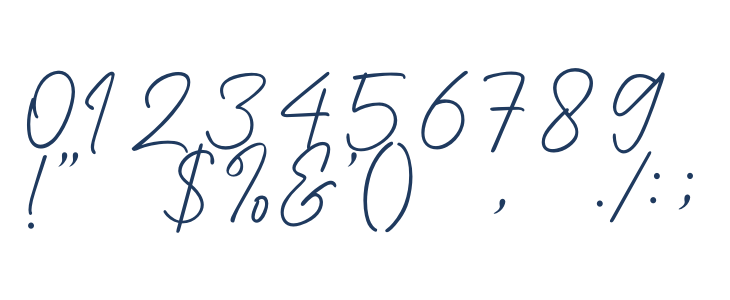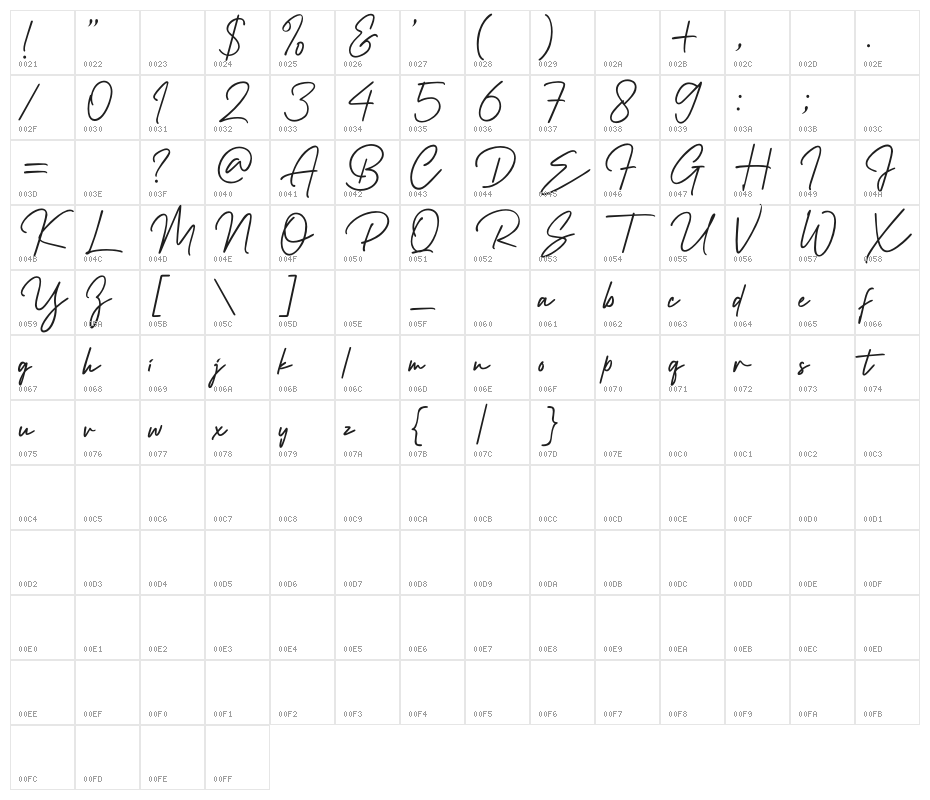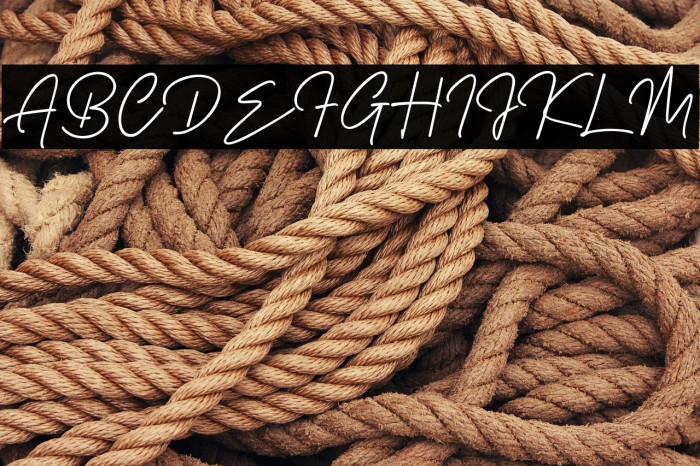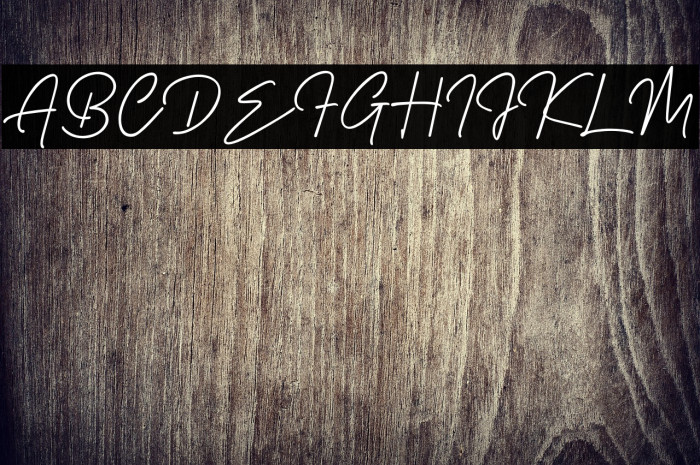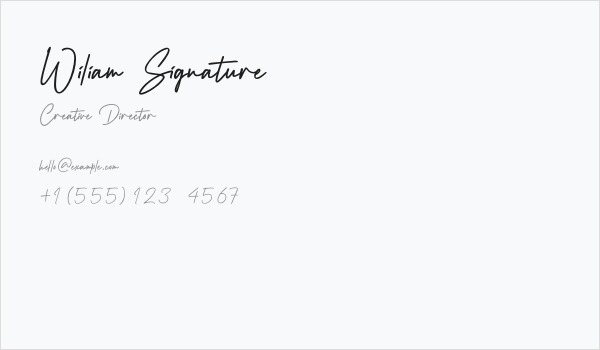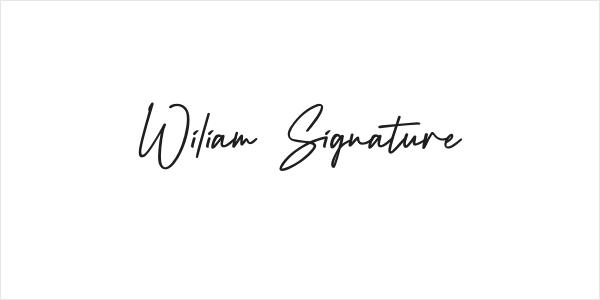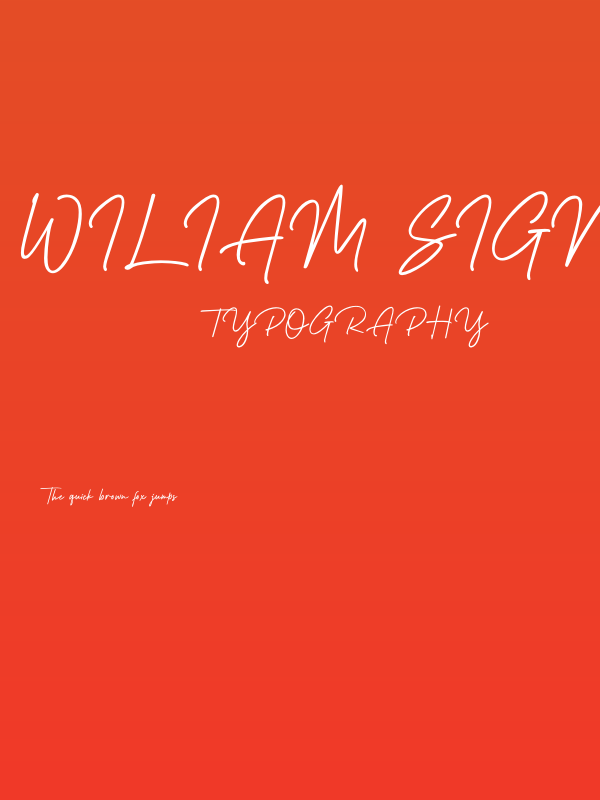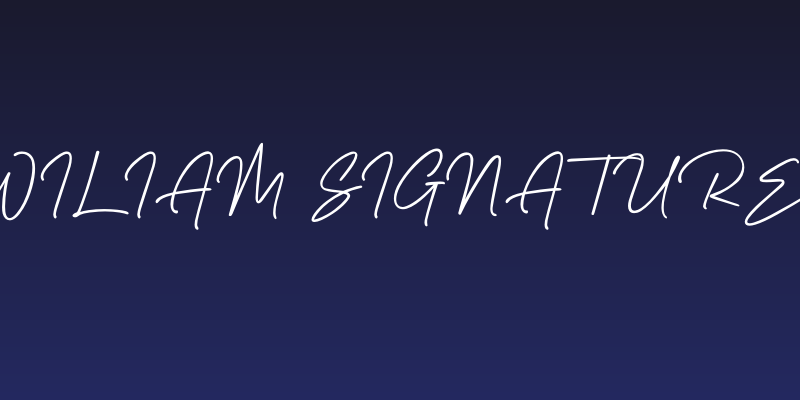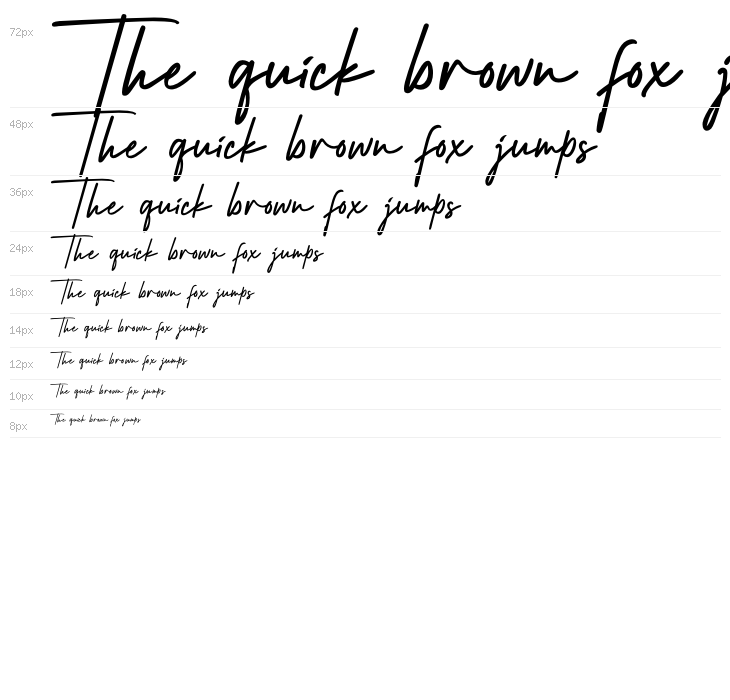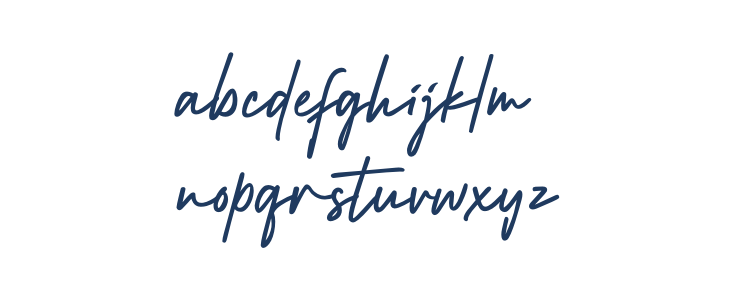
Wiliam Signature Font
Wiliam Signature Description
This font exudes elegance and sophistication with its fluid, cursive style. Each letter is crafted with smooth, flowing strokes that mimic the natural motion of handwriting. The uppercase letters are slightly more elaborate, with graceful loops and curves, while the lowercase letters maintain a consistent, connected flow. The numbers and special characters are designed to complement the alphabet, maintaining the same elegant style. This font is perfect for adding a personal touch to any project, making it ideal for invitations, branding, and other creative endeavors.
| Proposed Projects | Ideal for wedding invitations, personal branding, greeting cards, and elegant logo designs. |